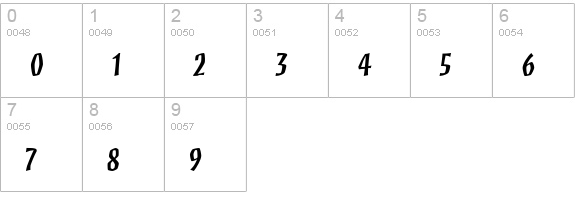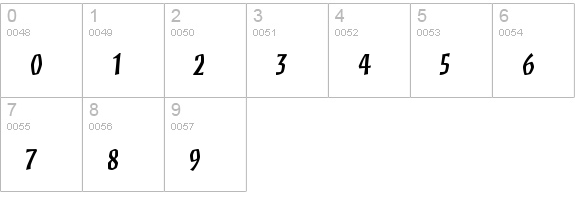
Mezz Std Semibold is a sub-bold, structured variant in the Mezz typeface family \xE2\x80\x94 well suited to sub-headlines and emphasised passages.
Mezz Std Semibold font is a modern and versatile typeface that exudes a sense of strength and sophistication. With its bold and authoritative appearance, this font is perfect for making a statement in various design projects. Whether used for headlines, branding, or editorial purposes, Mezz Std Semibold commands attention and adds a touch of elegance to any text. What makes Mezz Std Semibold even more appealing is that it is available for free download at FontsMarket.com. This means that you can easily access this high-quality font without any cost, making it a valuable addition to your font collection. So don't miss out on the opportunity to enhance your designs with the striking Mezz Std Semibold font — download it today and elevate your creative projects to the next level!